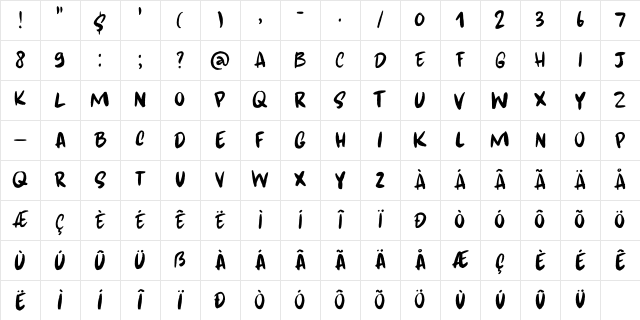
Complete Kapsalon Brush DEMO Regular glyph index. Displaying only characters natively supported by Kapsalon Brush DEMO Regular font.
Kapsalon Brush DEMO flows with the natural rhythm of handwritten lettering, making it ideal for designs that call for warmth and personal expression.
Font Pairing: Combine Kapsalon Brush DEMO with a simple geometric sans for maximum contrast - the tension between flowing curves and clean structure is a classic typographic pairing.
Pro Tip: Use Kapsalon Brush DEMO for short runs of text - names, titles, or taglines. Extended body copy in script faces tires the eye quickly.